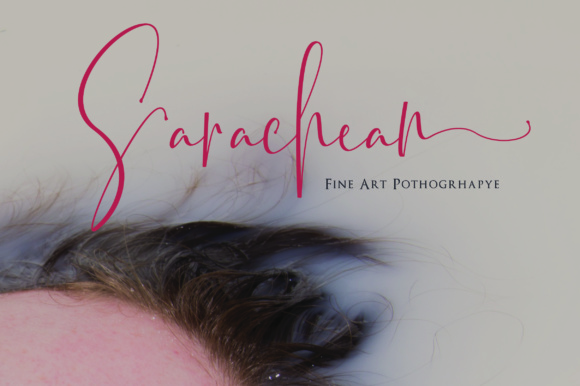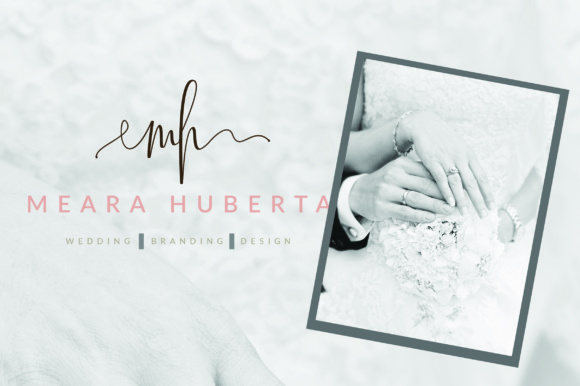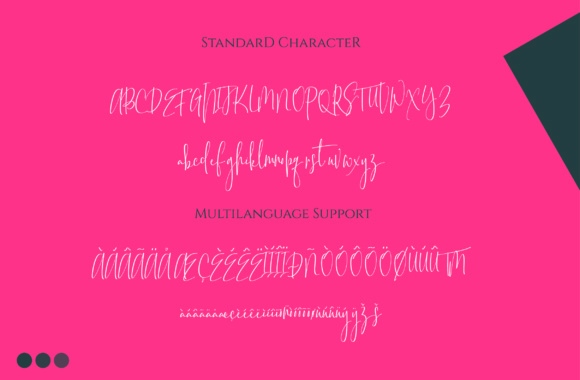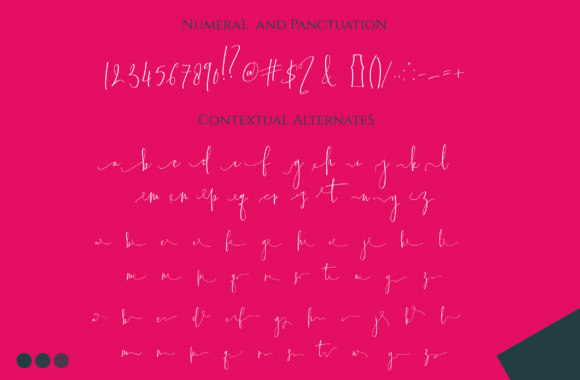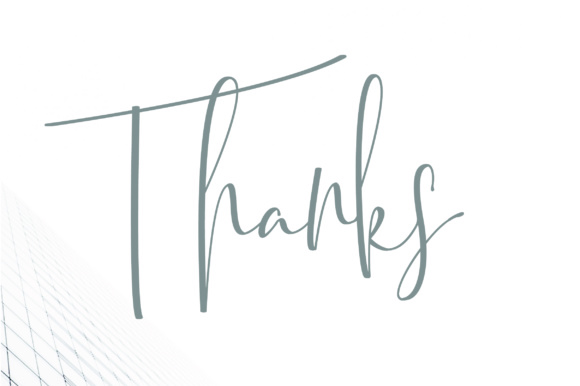
Shanghae Font – Free Download
Introduction to Shanghae Font
The Shanghae is a beautiful script typeface.
It had handmade calligraphy and decorative characters It’s wonderful on invitations, greeting cards, branding materials, business cards, quotes, posters, and more.
Key Features of Shanghae Font